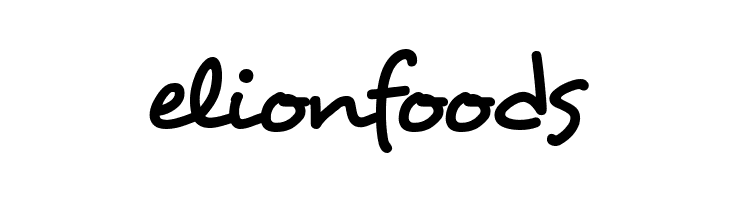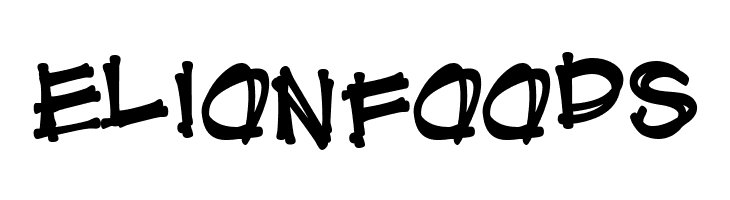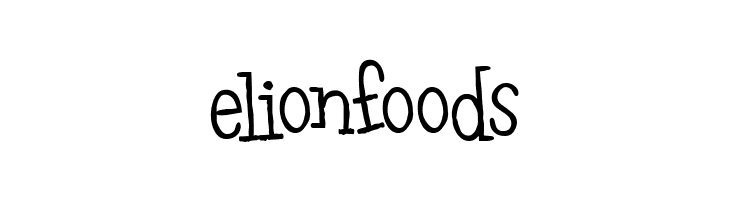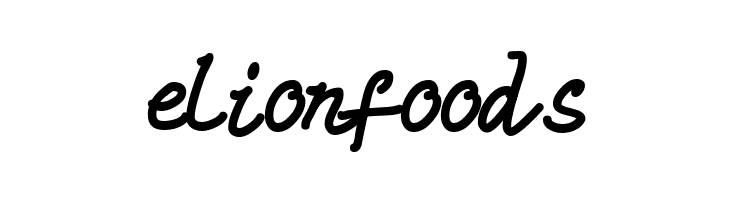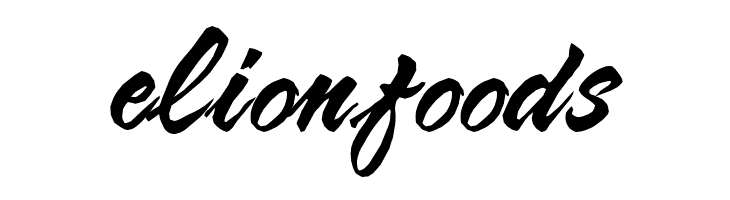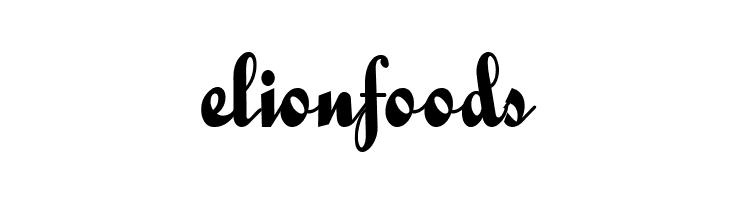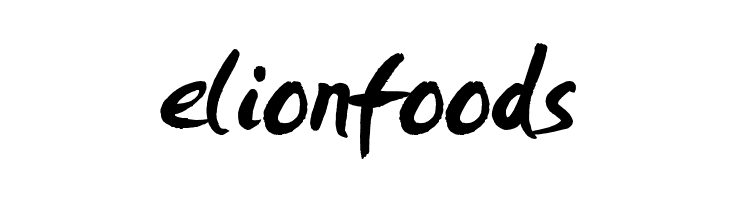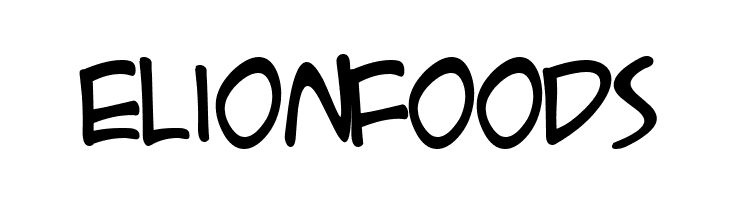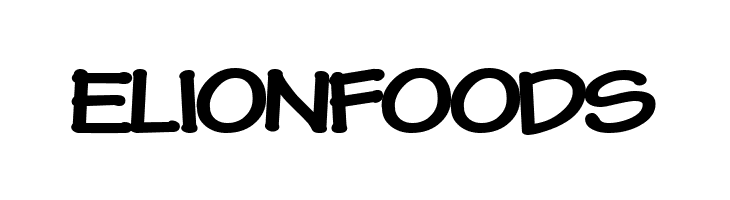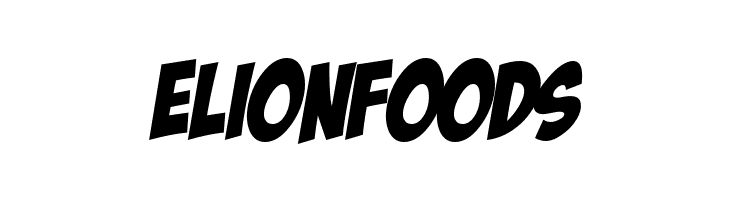
A bold, brush-style font with dynamic, hand-drawn strokes.
A bold, decorative script font with expressive, sweeping strokes.
A bold, expressive script font with flowing, cursive letterforms.
A bold, playful comic-style font with rounded, handwritten characters.
A bold, dynamic font with a playful comic book style.
A playful, bold handwritten font with a casual and dynamic style.
A bold, playful, hand-drawn font with a whimsical and energetic style.
A whimsical and playful font with irregular, hand-drawn letterforms.
A bold, cursive font with a playful and energetic style.